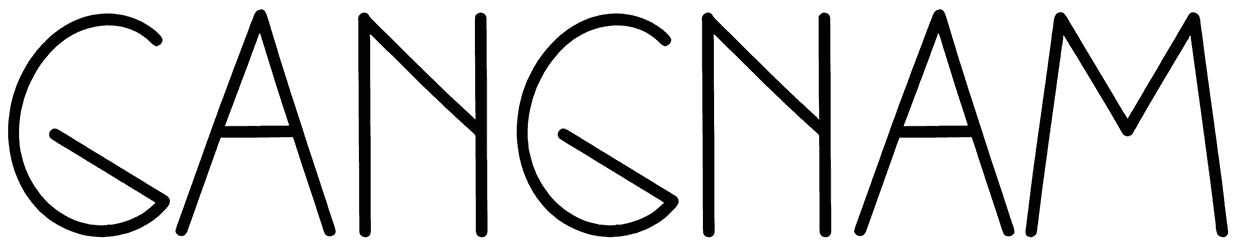
Gangnam Font
A simple solution to leave a lasting impression on your followers is choosing a modern, minimal, and cool style for your design, and this neon font can easily get you there. The modest characters of this sign font can be used for different topics, and it will give you great freedom. Test the Gangnam font for your nightclub party flyer and enjoy the perfect outcome.
Gangnam is a thin and tall sans serif font. It can easily be matched to various projects, so add it to your most creative ideas and notice how it makes them stand out and come alive!